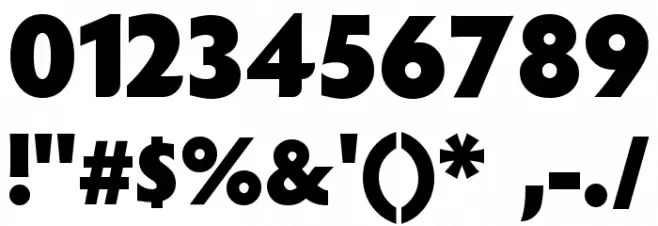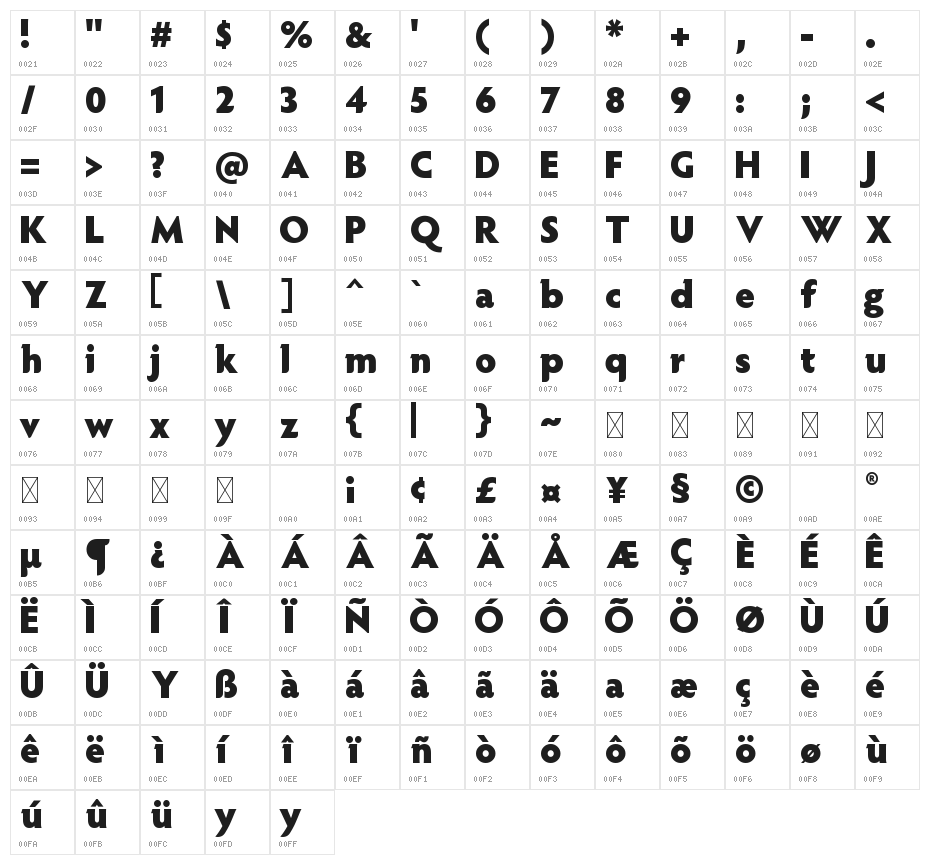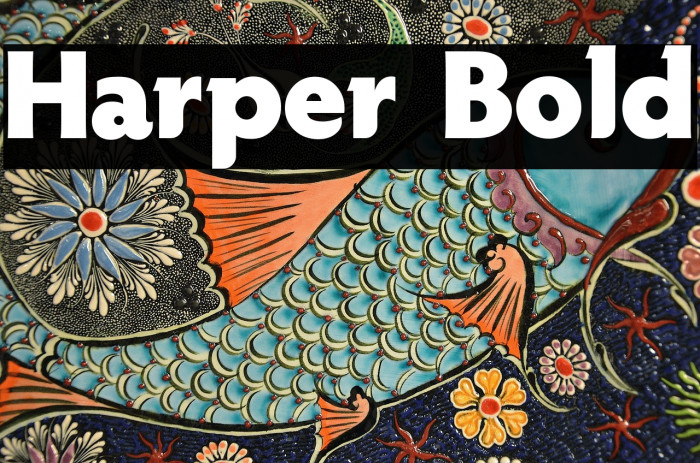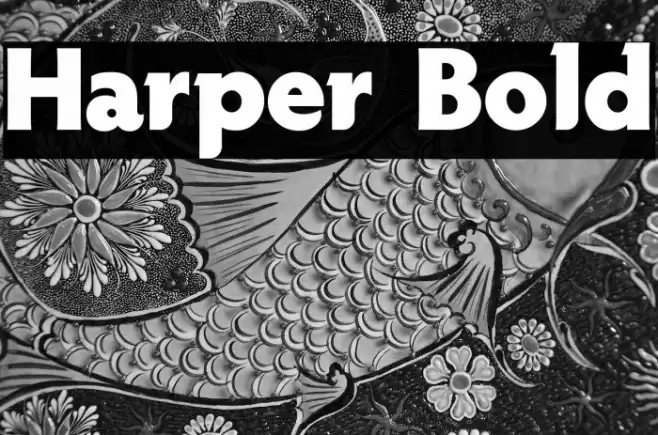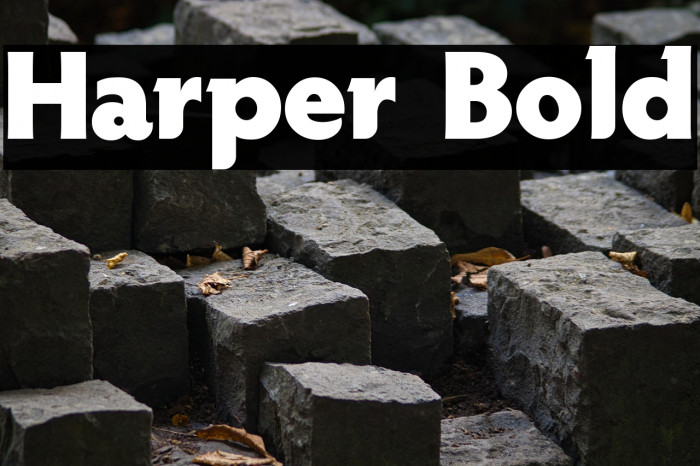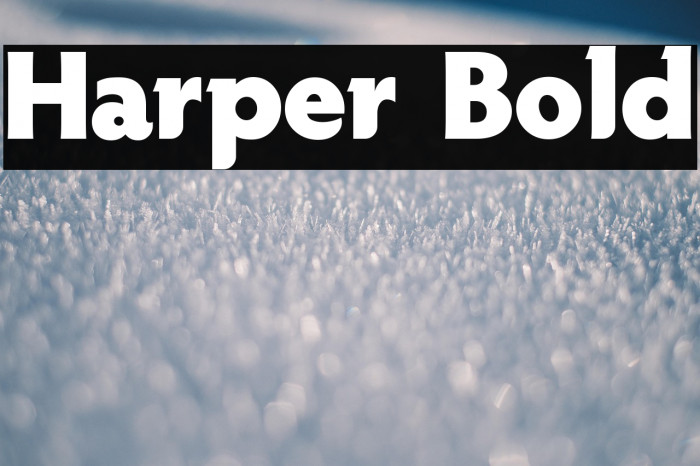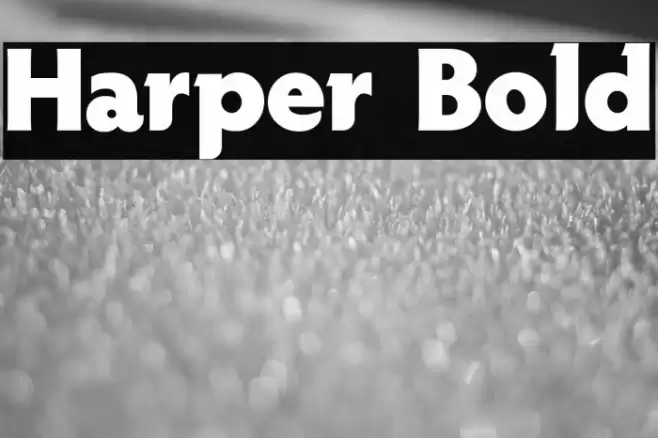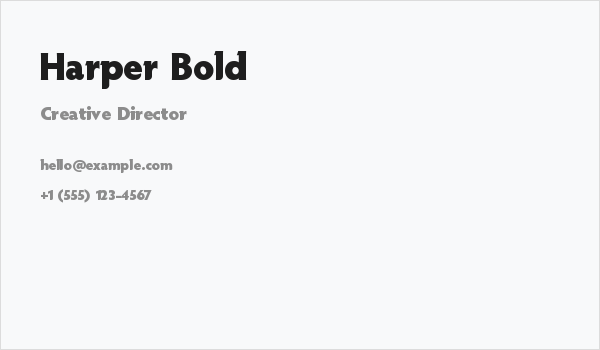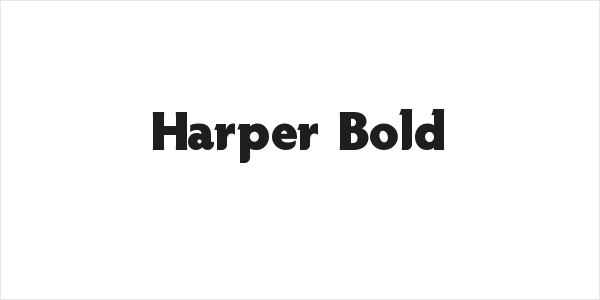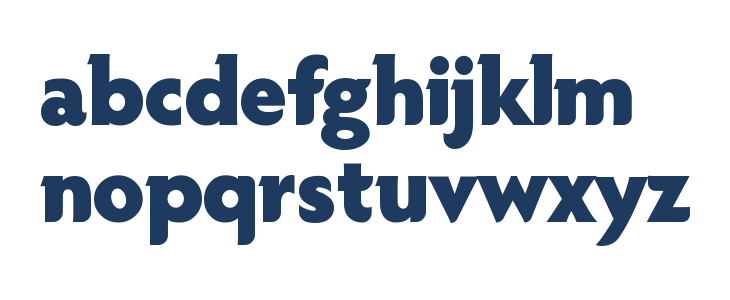
Harper Bold Font
Harper Bold Description
This font exhibits a bold and assertive style, characterized by thick strokes and a strong presence. The uppercase letters are uniform in height, with a geometric influence that gives them a modern and clean appearance. The lowercase letters maintain a consistent weight, providing a harmonious balance between the characters. Numbers are equally bold, ensuring readability and impact. Special characters are designed with the same boldness, making them stand out effectively. Overall, this font is designed to capture attention and convey a sense of strength and modernity.
| Proposed Projects | Ideal for branding, headlines, posters, and any project requiring a strong visual impact. |